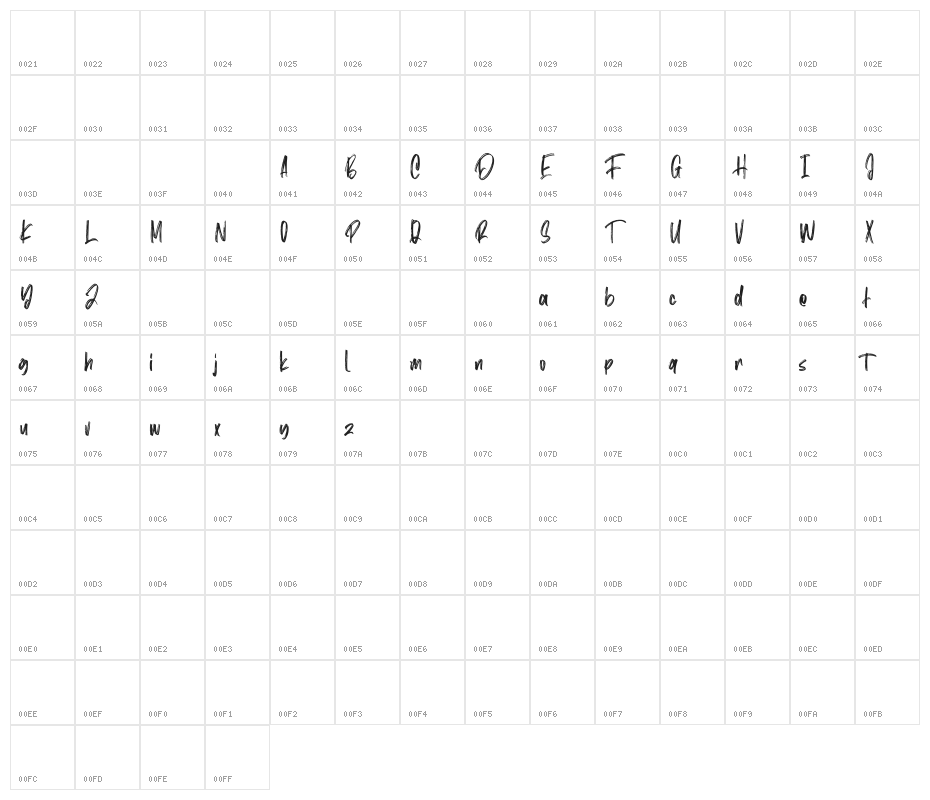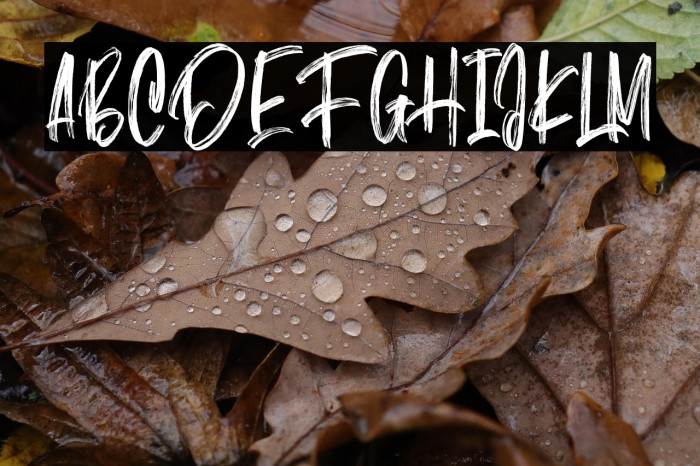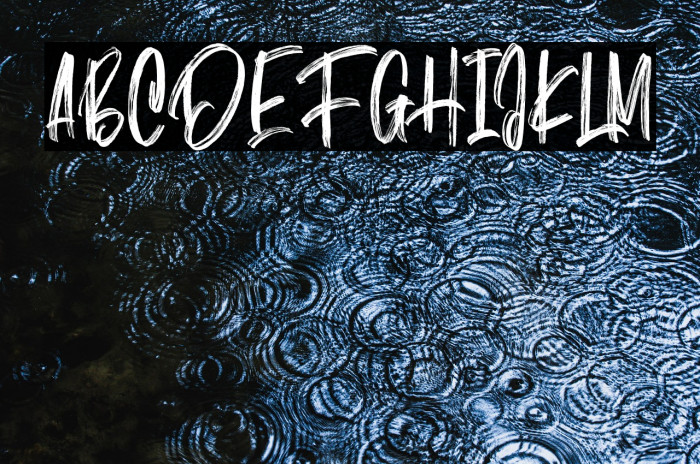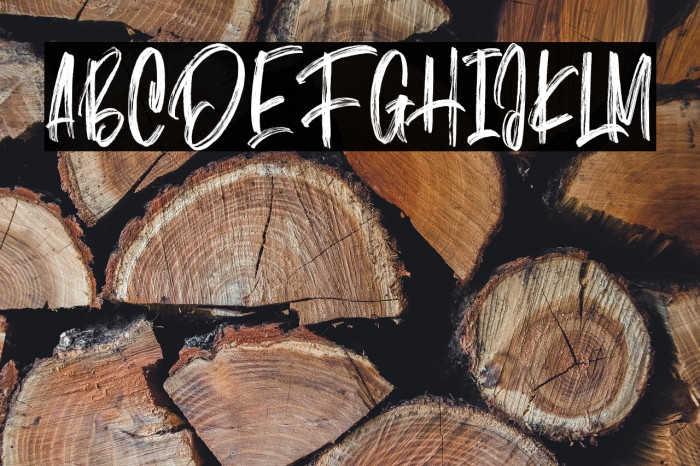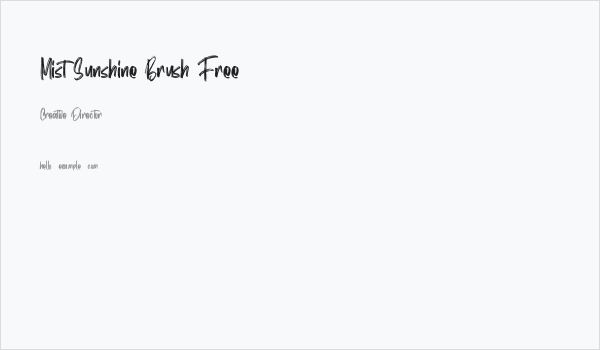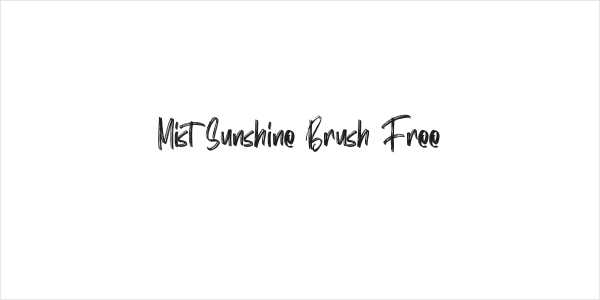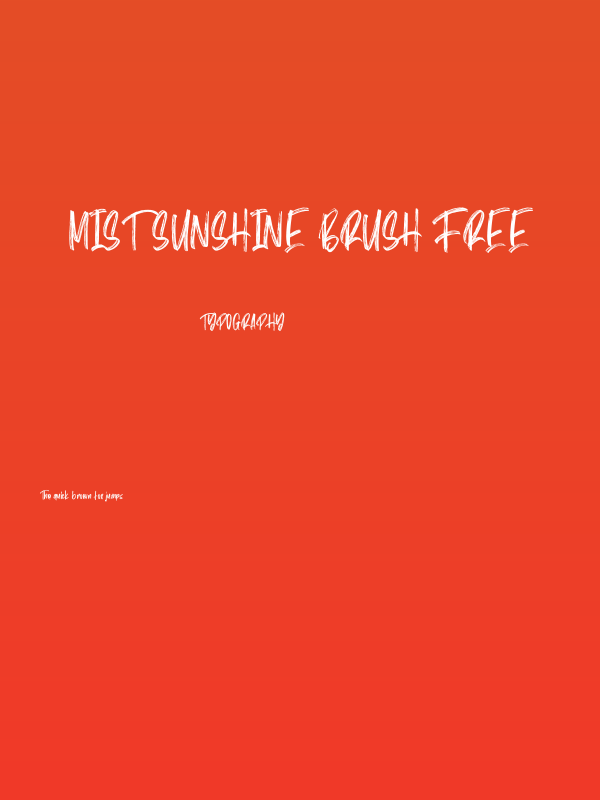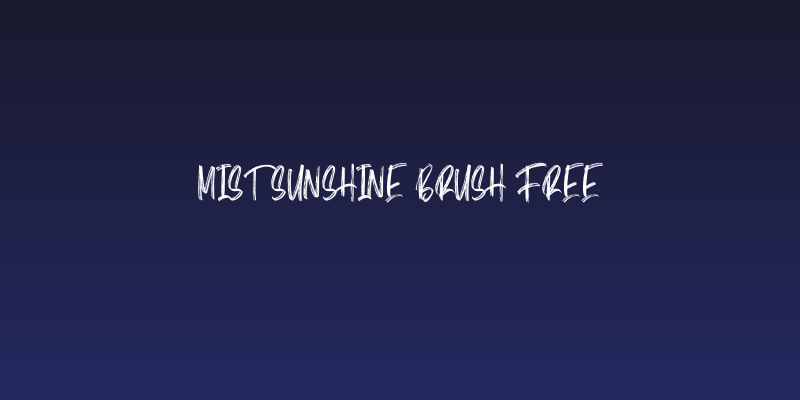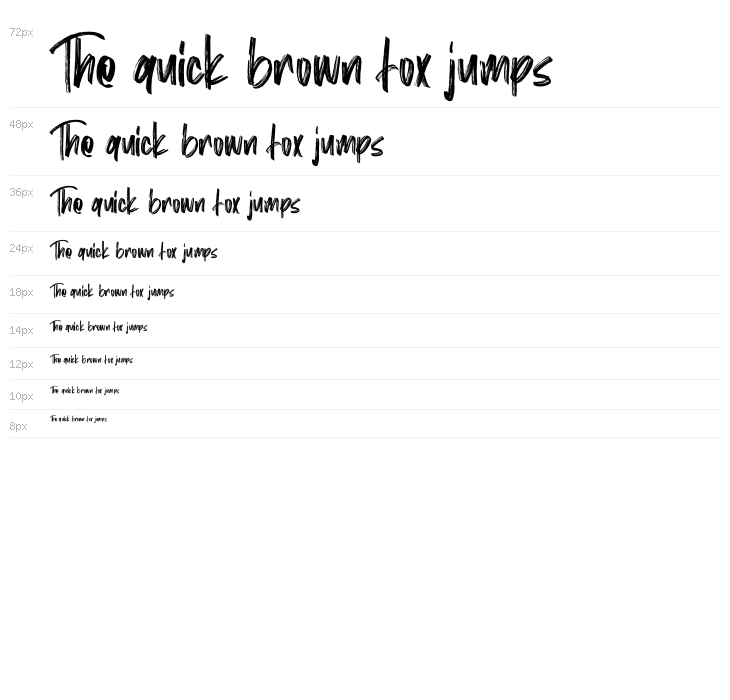
Mist Sunshine Brush Free Font
Mist Sunshine Brush Free Description
This font exudes a dynamic and energetic vibe, characterized by its brush-like strokes that give it a hand-painted appearance. The letters are bold and slightly irregular, adding a sense of movement and spontaneity. The uppercase letters are tall and commanding, while the lowercase letters maintain a consistent flow. The font's rough edges and varying stroke widths contribute to its artistic and informal style, making it ideal for creative projects. Its unique character is enhanced by the natural texture, reminiscent of brush calligraphy, which adds depth and personality.
| Proposed Projects | Ideal for posters, branding, social media graphics, and creative projects that require a lively and artistic touch. |